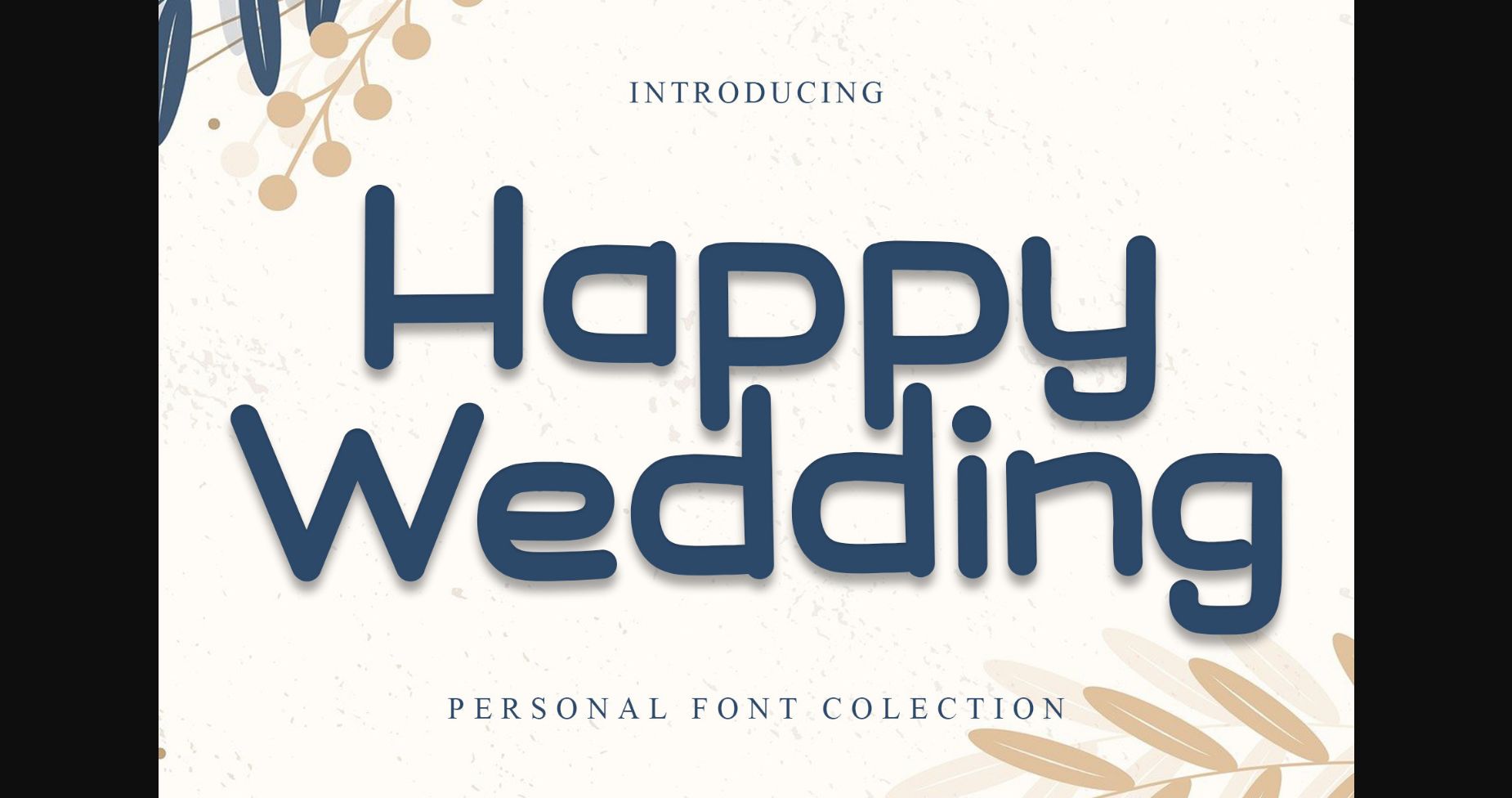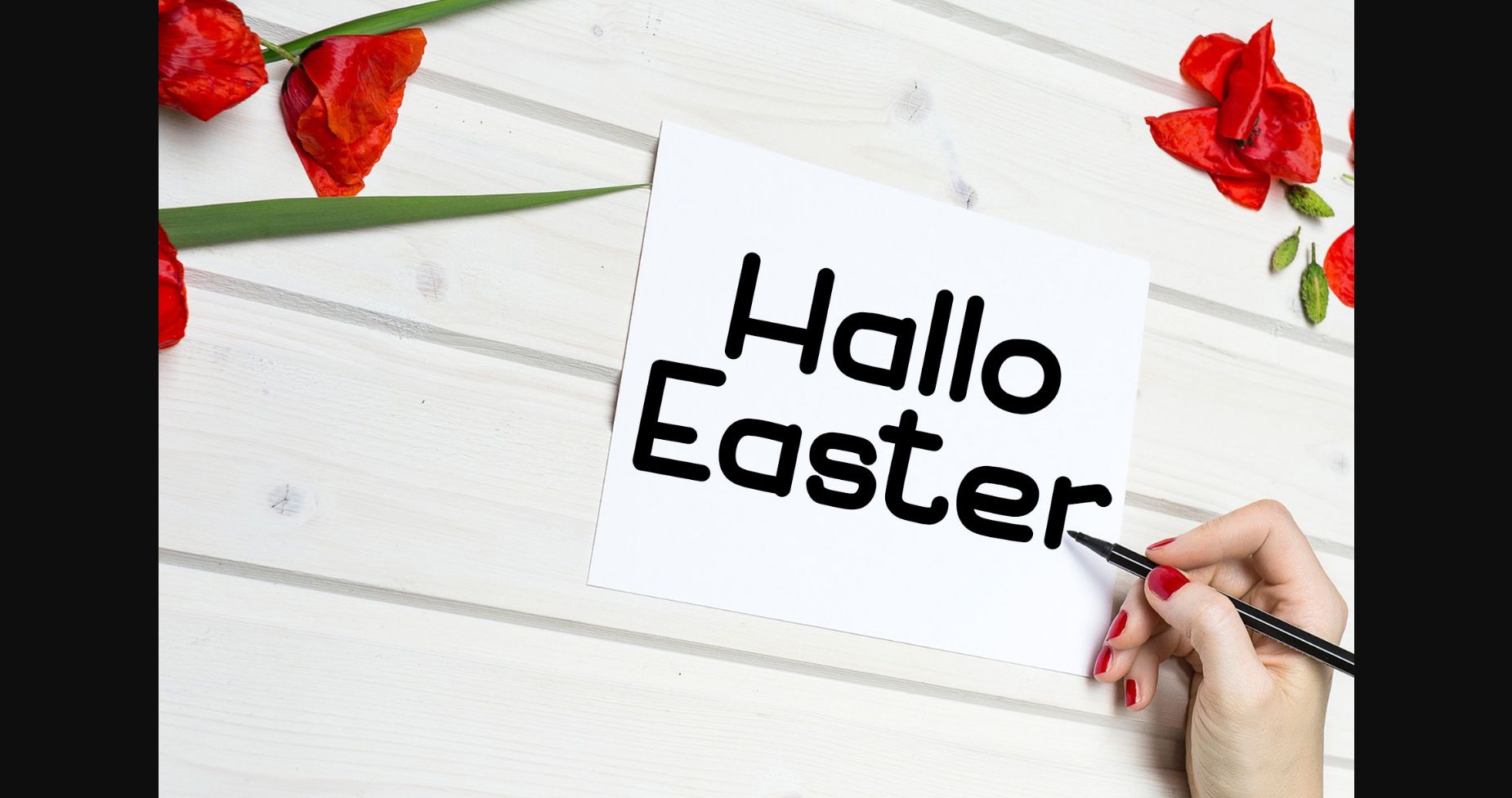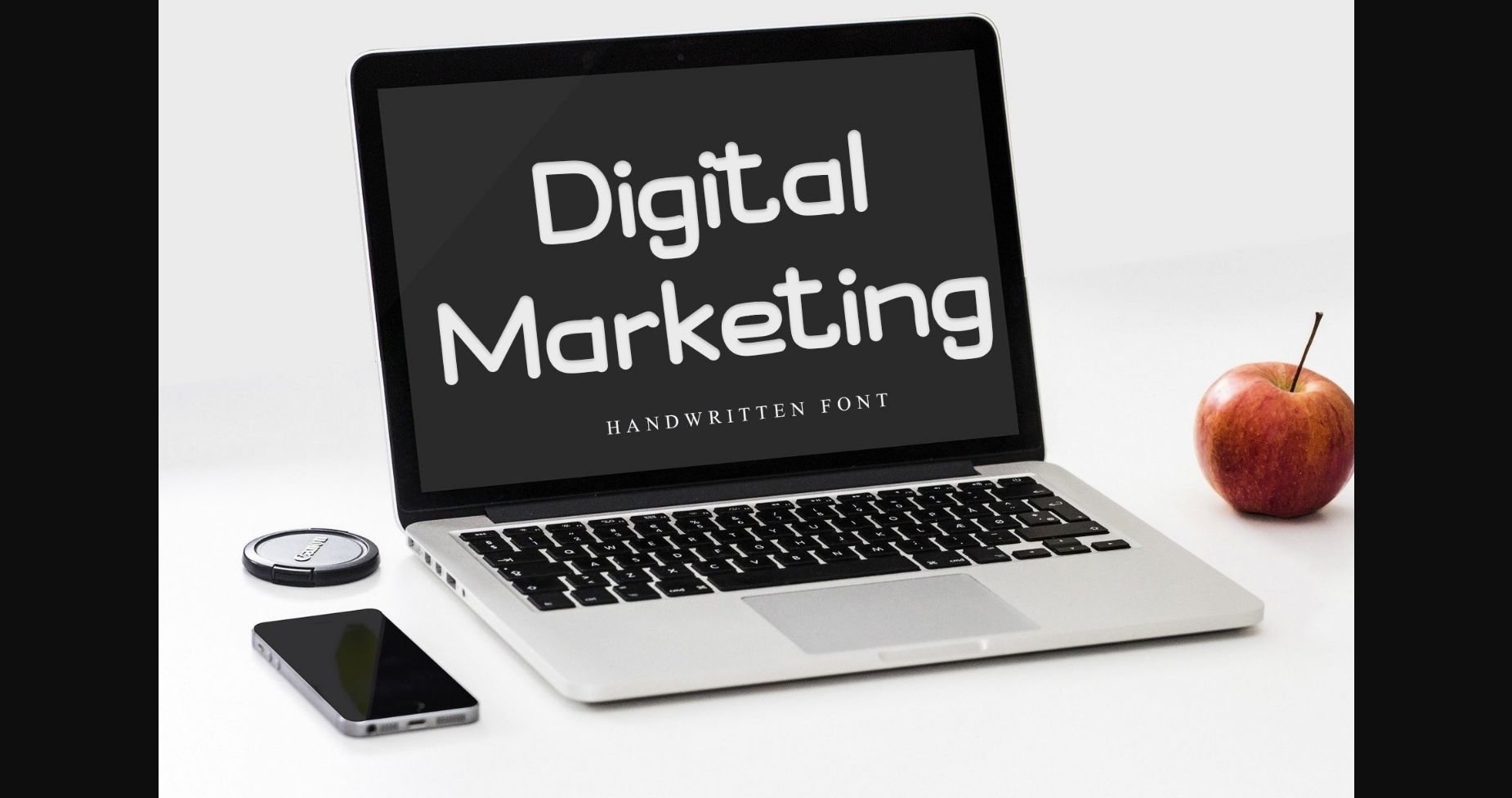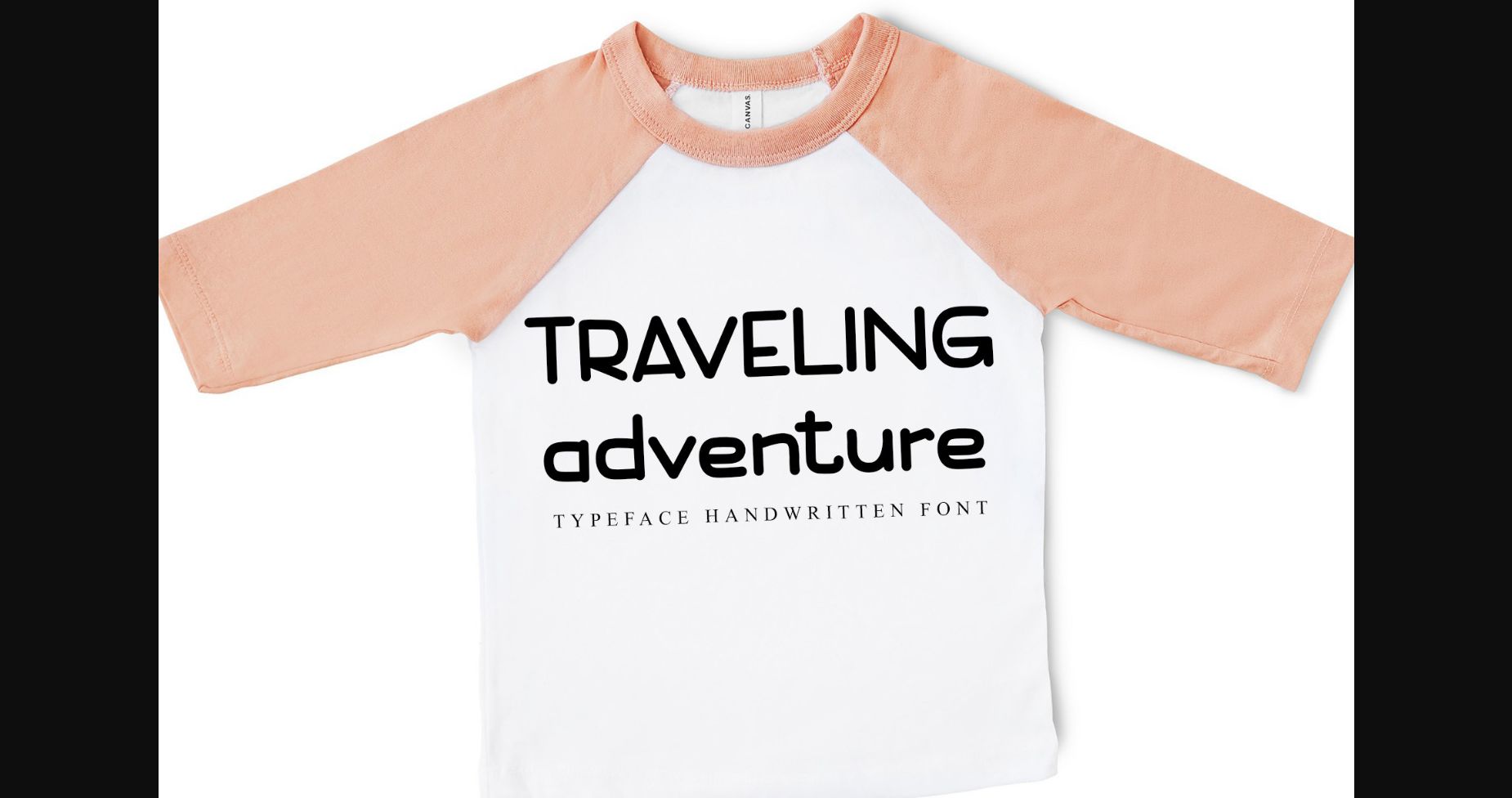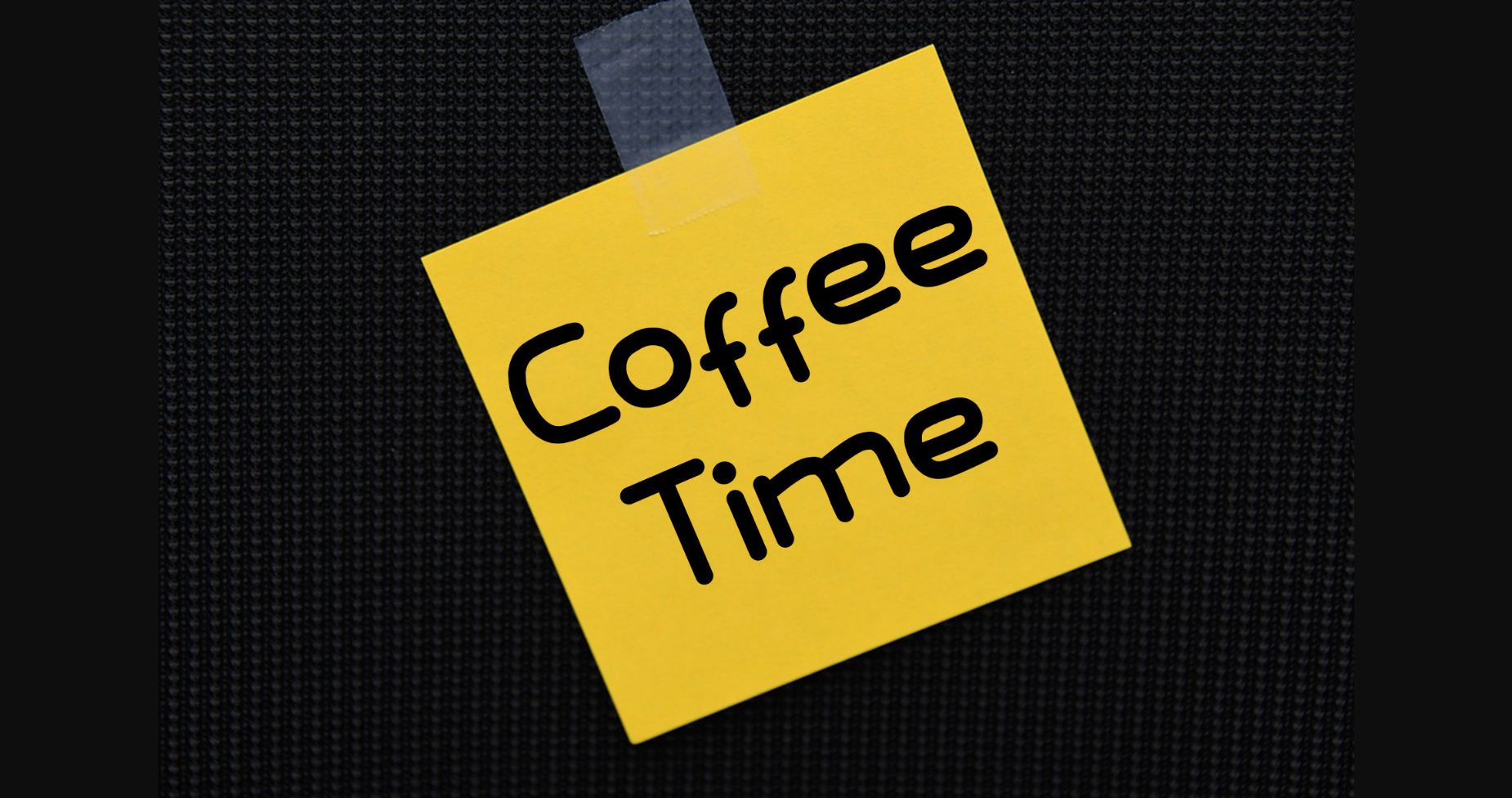
Happy Wedding Font
About Happy Wedding Font
Happy Wedding is a unique and elegant sans serif font. It features a varied baseline, created with a natural, hand-made touch. You will get spectacular results that will make your design more appealing to everyone!